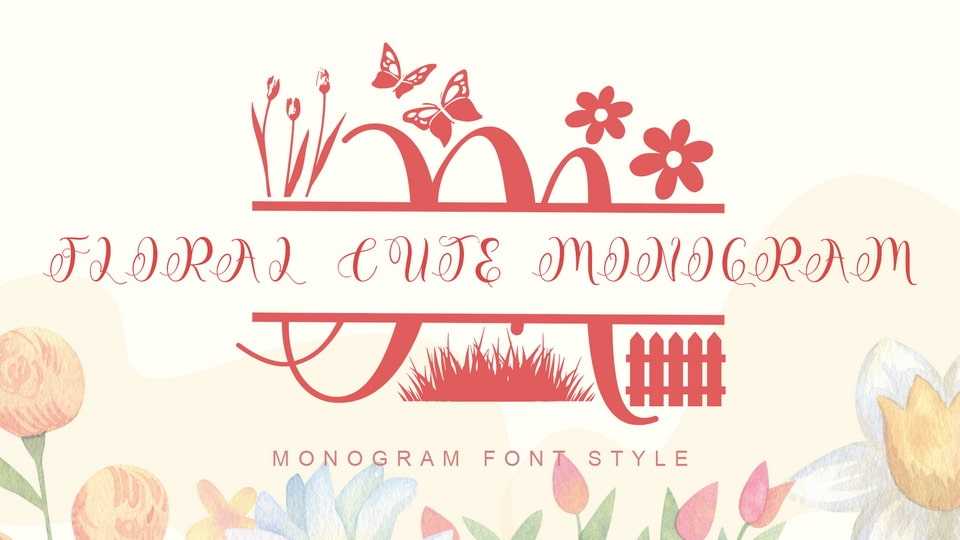
Download Floral Cute Monogram font, a beautiful and unique monogram typeface. It is very suitable for use for spring, summer, easter, wedding, natural, invitations, print, stickers and others.